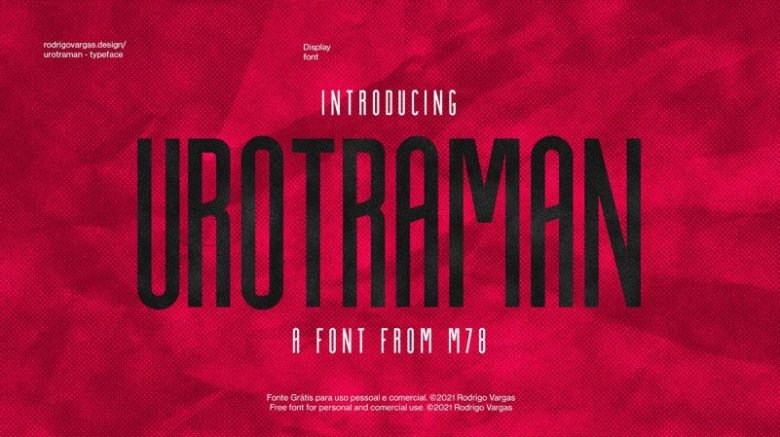
Urotraman Font
Urotraman font is a cool, bold display font. It’s a font display, created to pay homage to the work of Eiji Tsuburaya, perfect for titles and giving power in his texts was millimetrically designed for different situations with 140+ gliphys between accents and symbols.